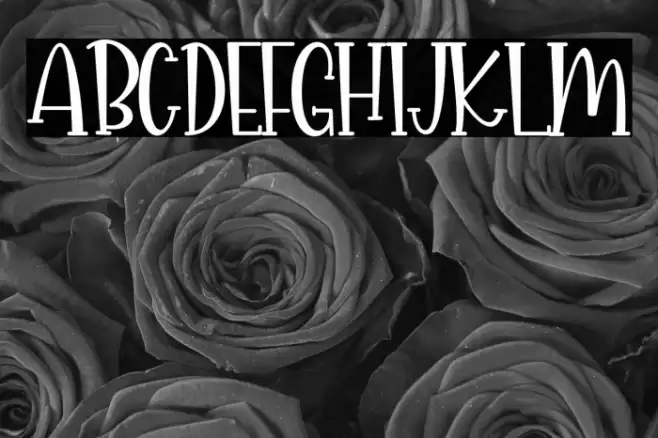
Spicyholic Font
Spicyholic Description
This font features a playful and whimsical design with a distinctive flair. The uppercase letters are tall and narrow, with exaggerated curves and a slight slant, giving them a lively and dynamic appearance. The lowercase letters maintain a consistent style, with flowing lines and a touch of elegance. Numbers are bold and clear, matching the overall aesthetic. Special characters are creatively designed, adding to the font's unique personality. The font's style is both decorative and modern, making it suitable for eye-catching designs.
A playful and whimsical font with exaggerated curves and a modern flair from Cartoon fonts.
- Font: Spicyholic
- Proposed Projects: Ideal for creative projects such as invitations, posters, branding, and social media graphics.
- Overall Style: Modern, Decorative
- Use Case: Headlines, Logos, Invitations